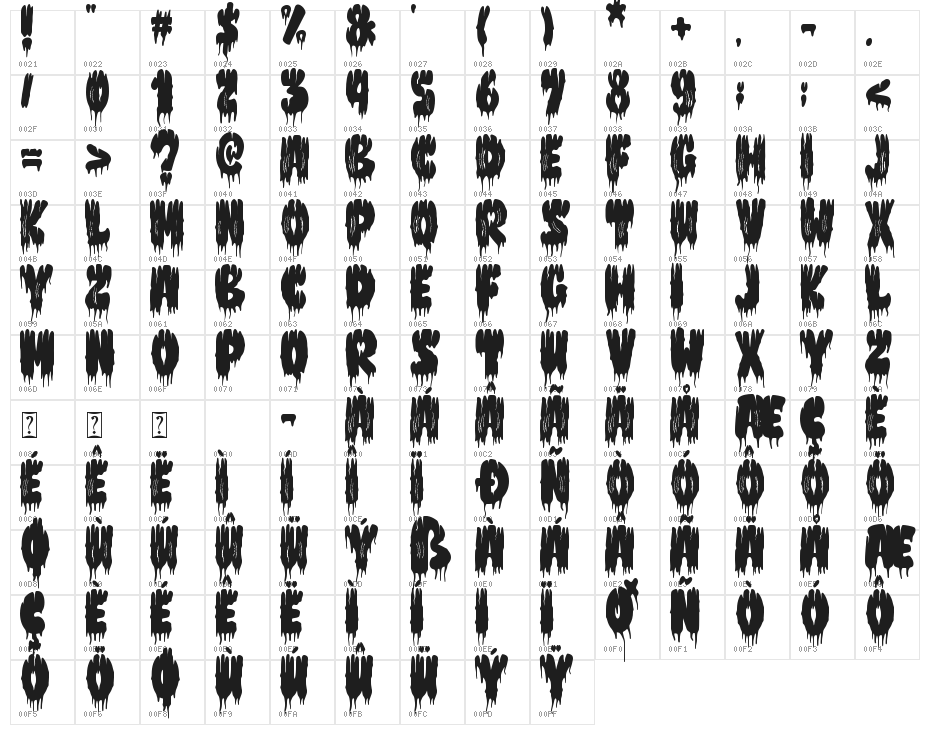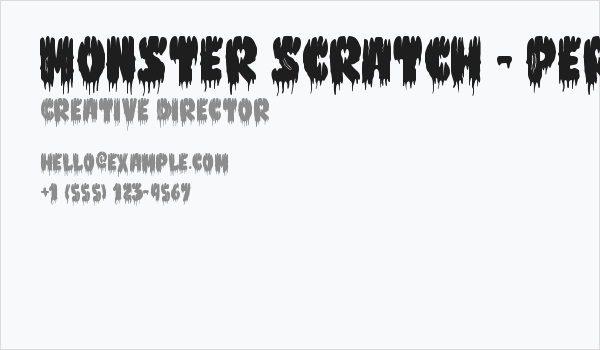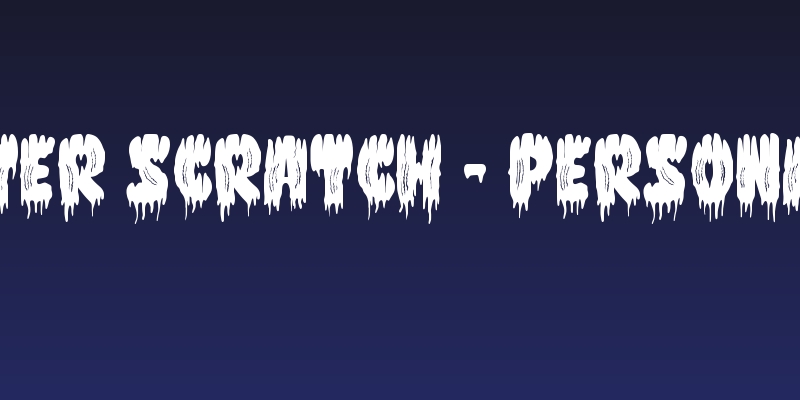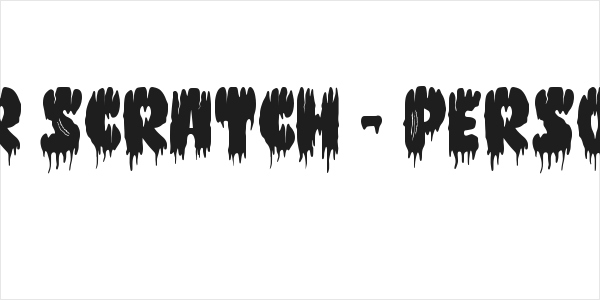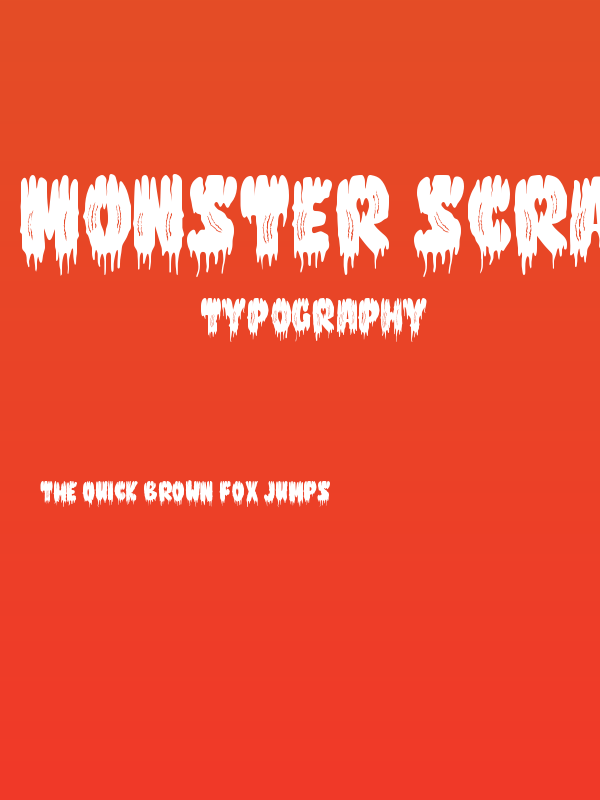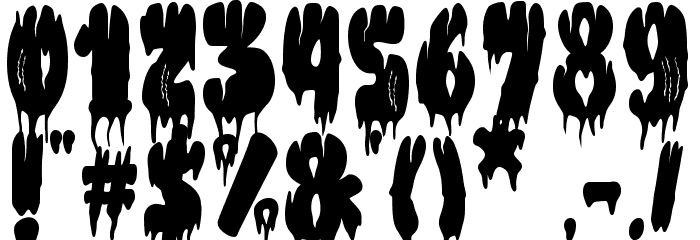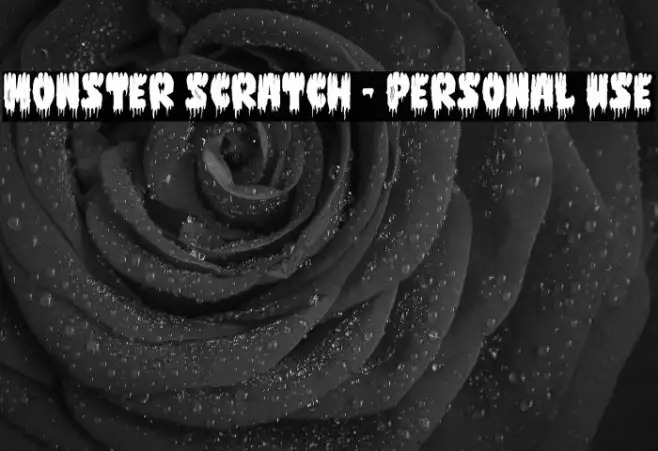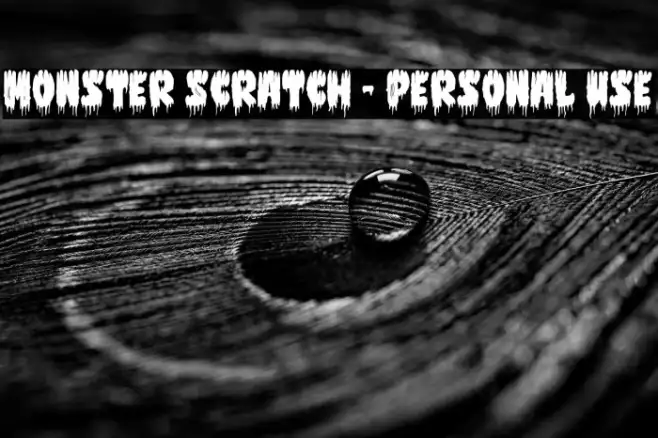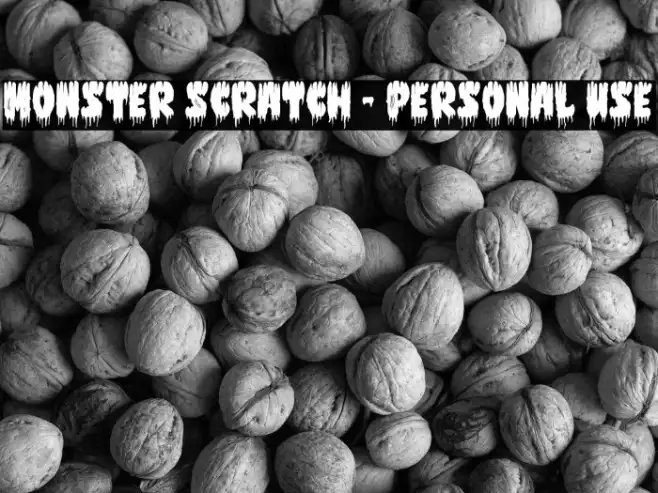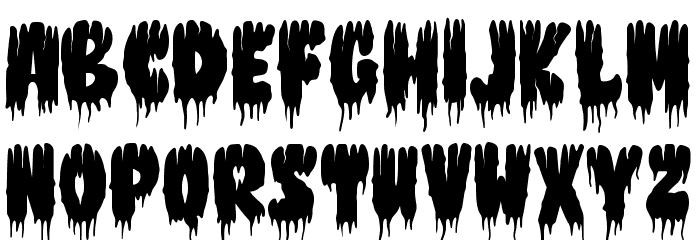
Monster Scratch - Personal use Font
Monster Scratch - Personal use Description
This font features a bold and dramatic design with a dripping, gooey effect that gives it a monstrous and eerie appearance. The characters are heavily stylized with uneven edges and a sense of movement, as if they are melting or oozing. This creates a unique and eye-catching look that is perfect for themes related to horror, Halloween, or anything that requires a spooky or playful touch. The uppercase and lowercase letters maintain a consistent style, while the numbers and special characters follow the same dripping motif, ensuring a cohesive and thematic appearance throughout.